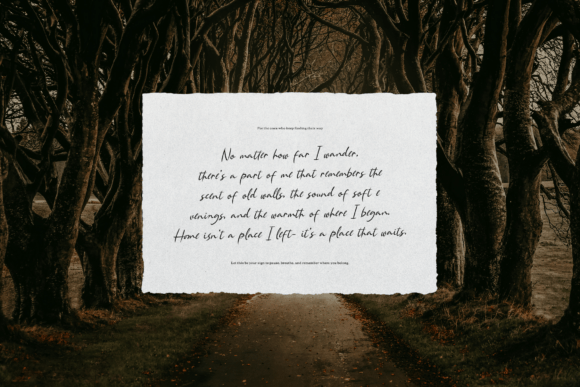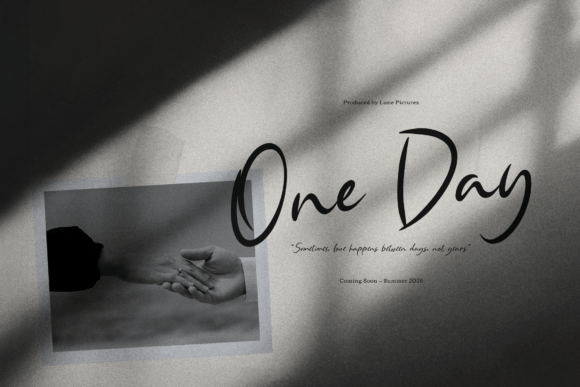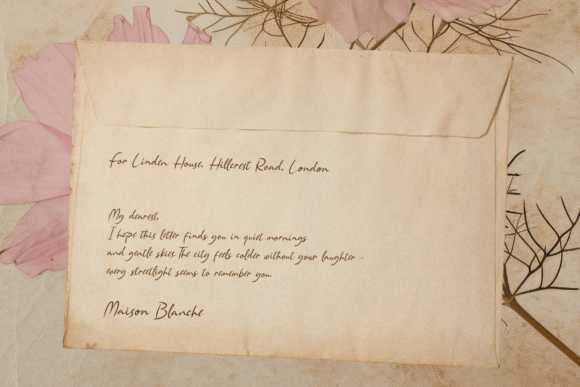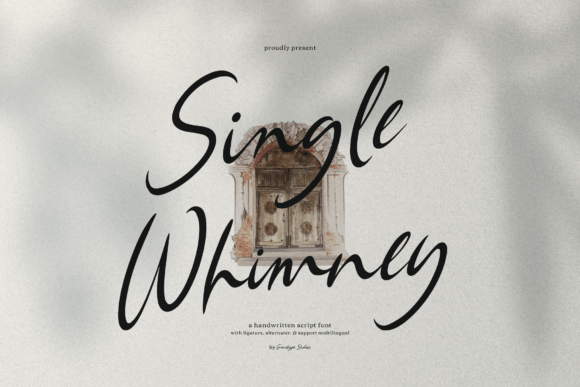
Introduction to Single Whimney Font
Single Whimney is an emotionally expressive and flowing handwritten script font.
Its high-energy brush strokes, natural variations, and quick, authentic movement give it a distinct signature style Enhanced with ligatures and alternates for seamless customization, this font is perfect for authentic personal branding, social media influencers, product packaging, high-impact titles, and any design that needs an artistic, bold, and dynamic hand-lettered look.